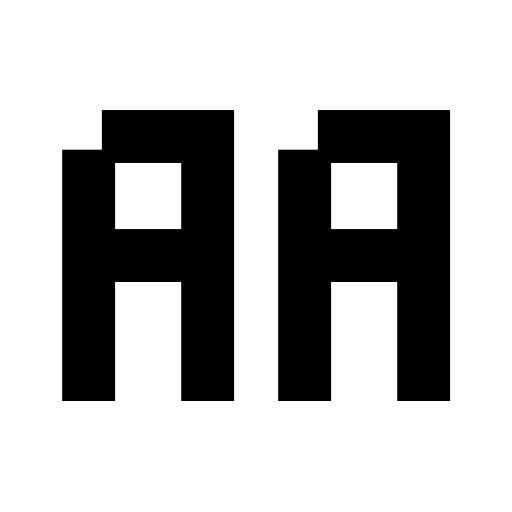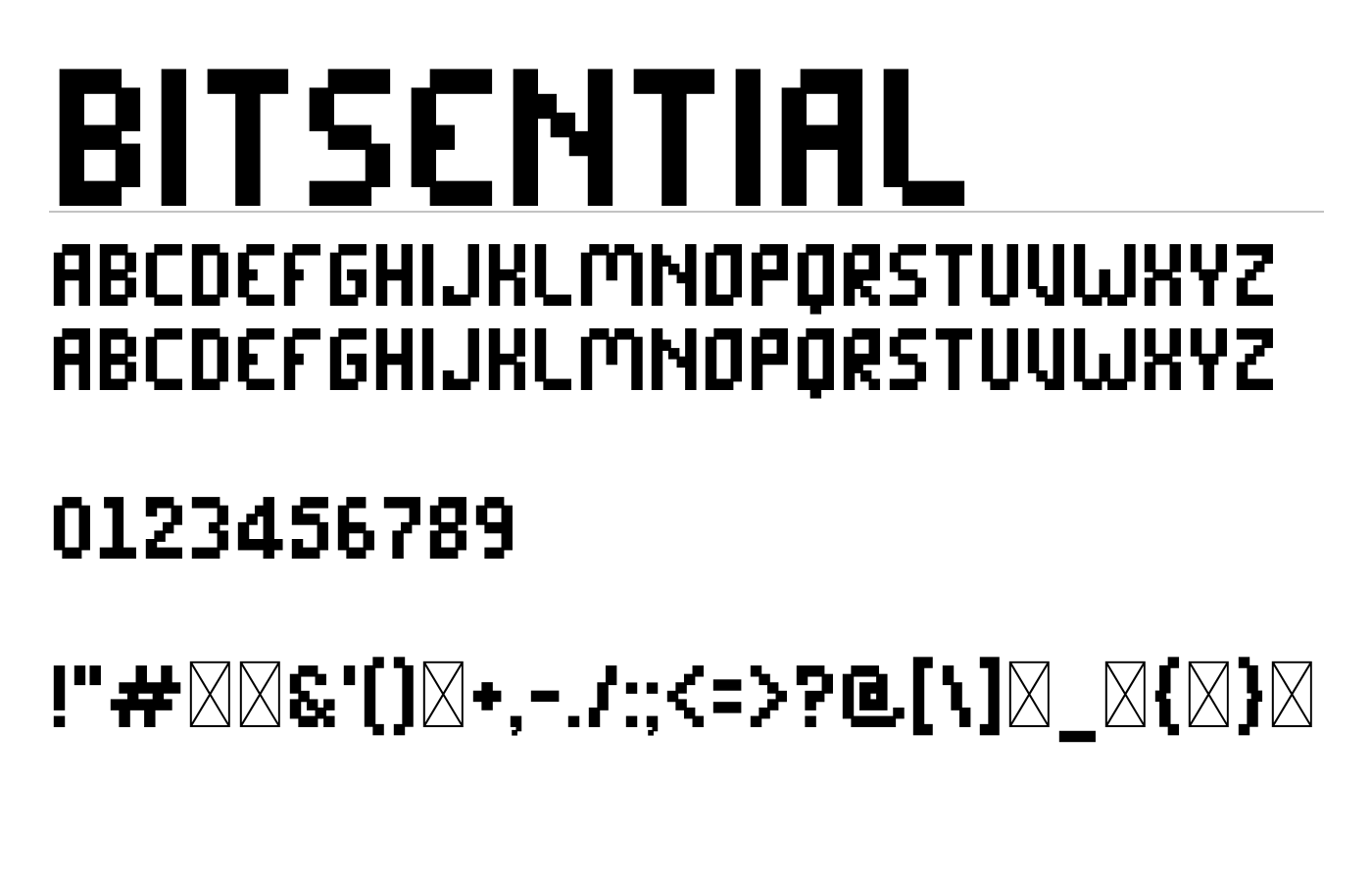
Bitsential is a bold, pixel-style sans serif font with a strong blocky appearance that evokes early digital and video game aesthetics. Its uniform stroke weight and squared forms give it a retro, tech-savvy vibe perfect for projects needing a vintage gaming or digital feel. This font works well in headlines, logos, and graphic designs where a distinctive, nostalgic tech look is desired.
Bitsential Font